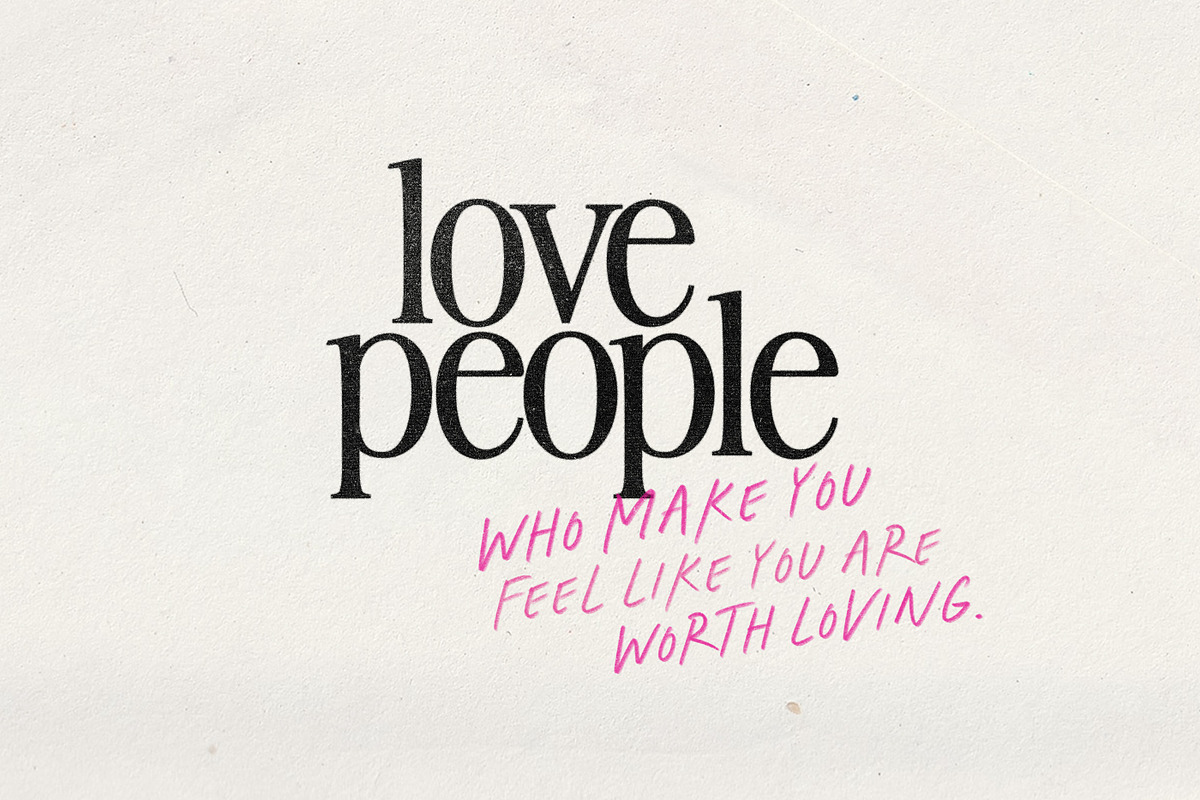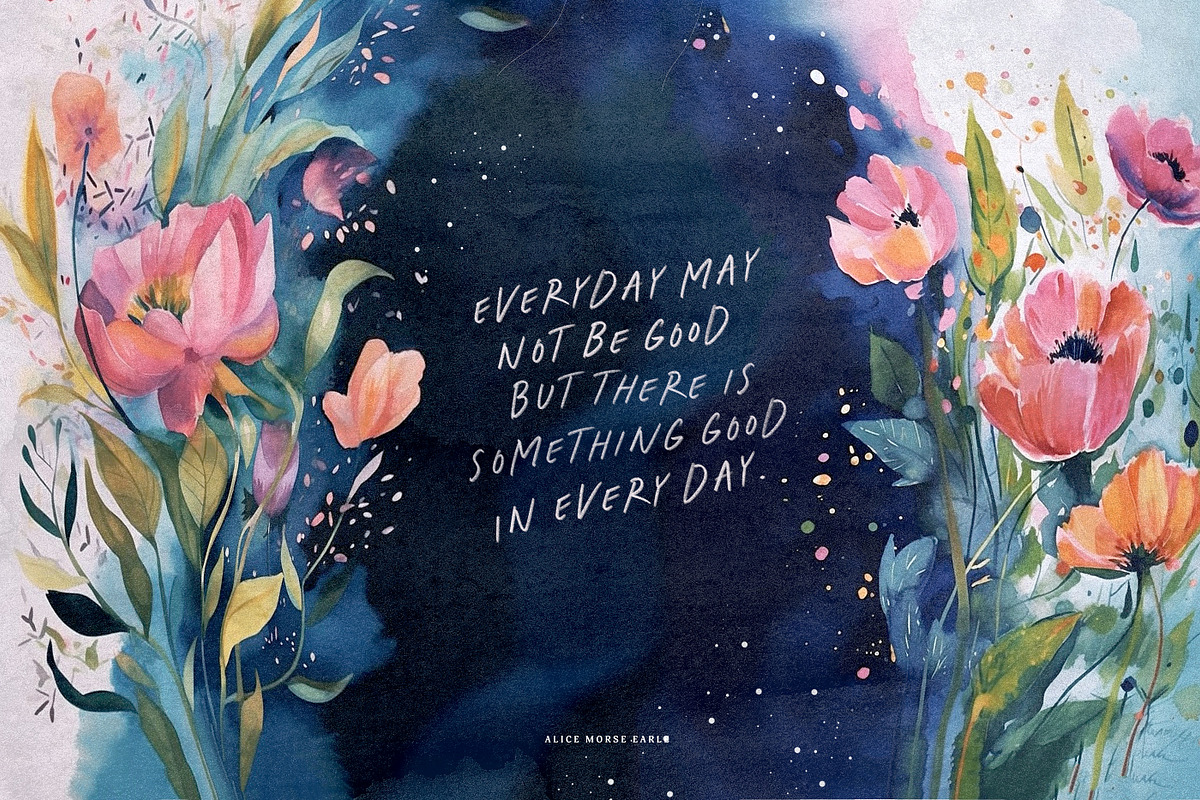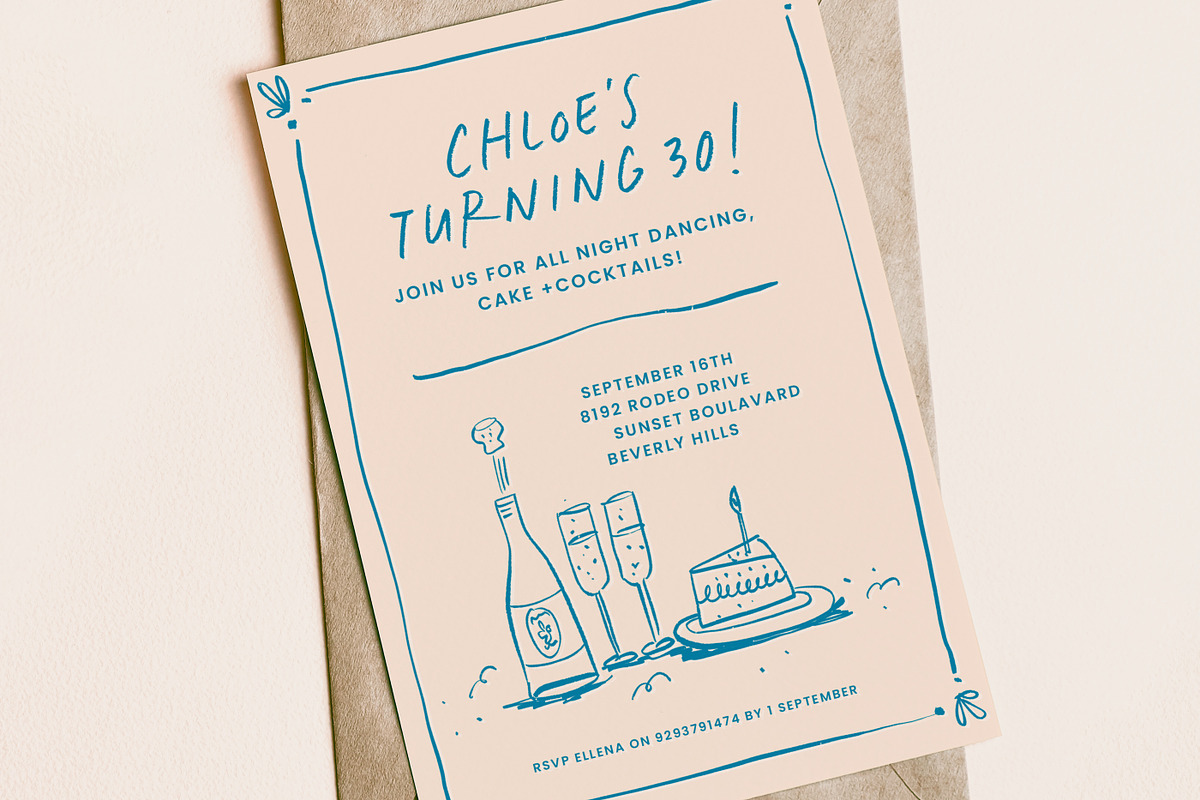
Mark My Words is a versatile, casual all-caps Pencil Bitmap SVG font. Playful but with a touch of serious. It comes in four variants : Regular, Oblique, Tight and Oblique Tight. Tight = Automatically tighter letterspacing/tracking if you prefer it. Great for overlaying on photos and just as striking on its own. Think posters/book, covers/greetings and quotes.